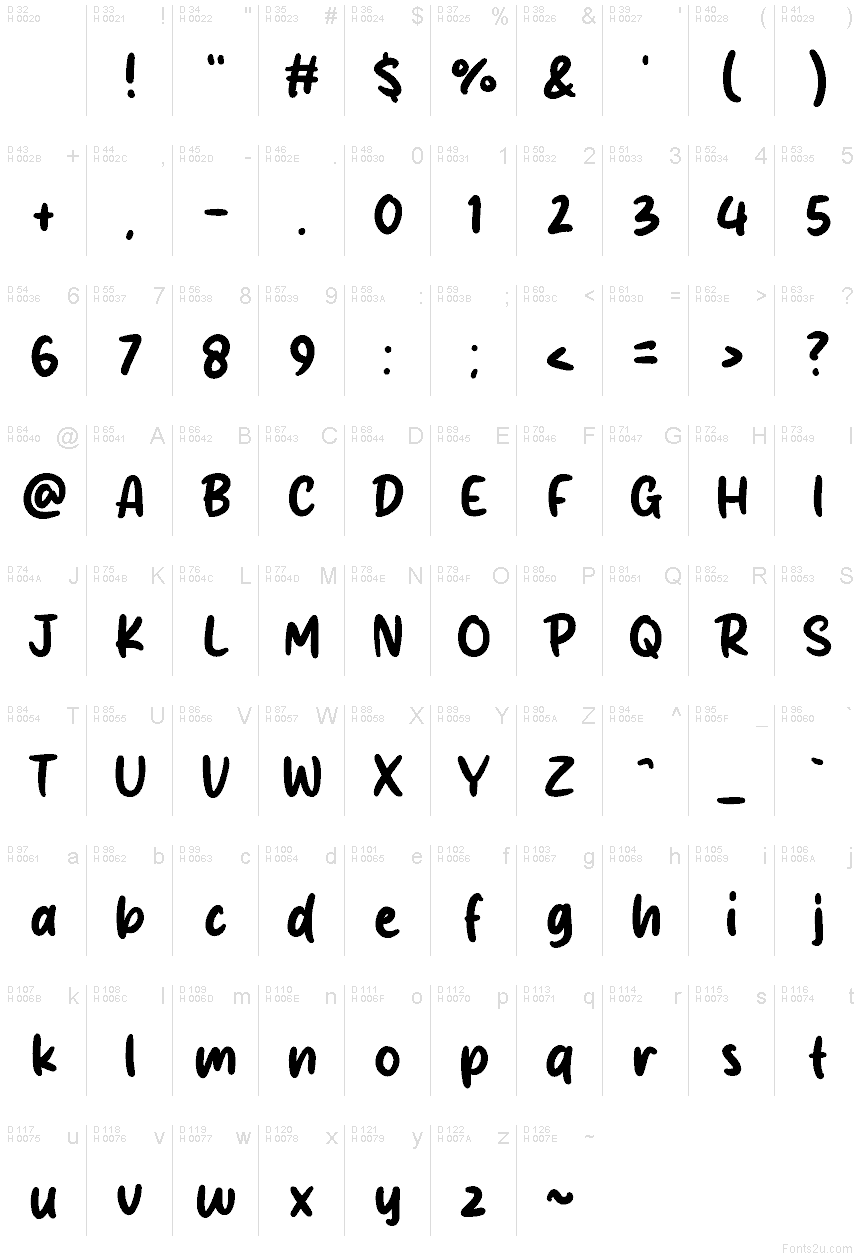
Beauty Sunny
Beauty Sunny font is a free handwritten font designed by MJType. The brush style gives it a casual, informal, light and friendly mood with both a warm and an inviting touch. Its bold weight allows it to have a slightly stronger appearance and feel than classic casual handwriting font options.
Use the multifaceted letter designs in your business card projects, printed quotes, greeting cards, invitation cards, thank you cards, posters, badges, social media covers and posts images, colorful brochures or magazine covers.